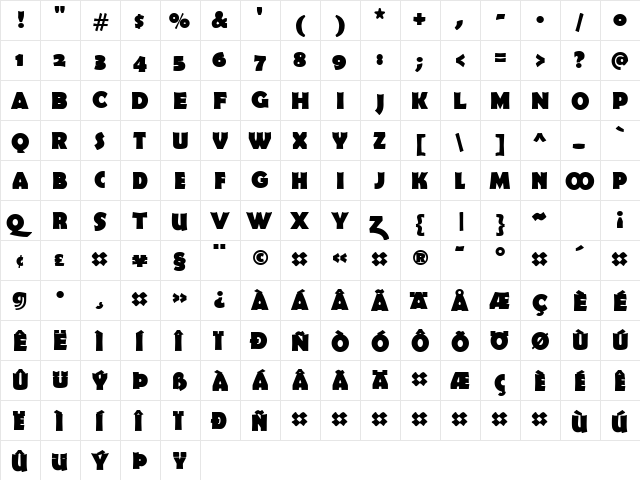
Berlinsans BoldExpert
Design Context for Berlinsans Typeface
Berlinsans takes a measured approach to typography — its balanced proportions and neutral character make it a reliable workhorse for both digital and print work. The heavy weight commands attention and anchors typographic hierarchies.